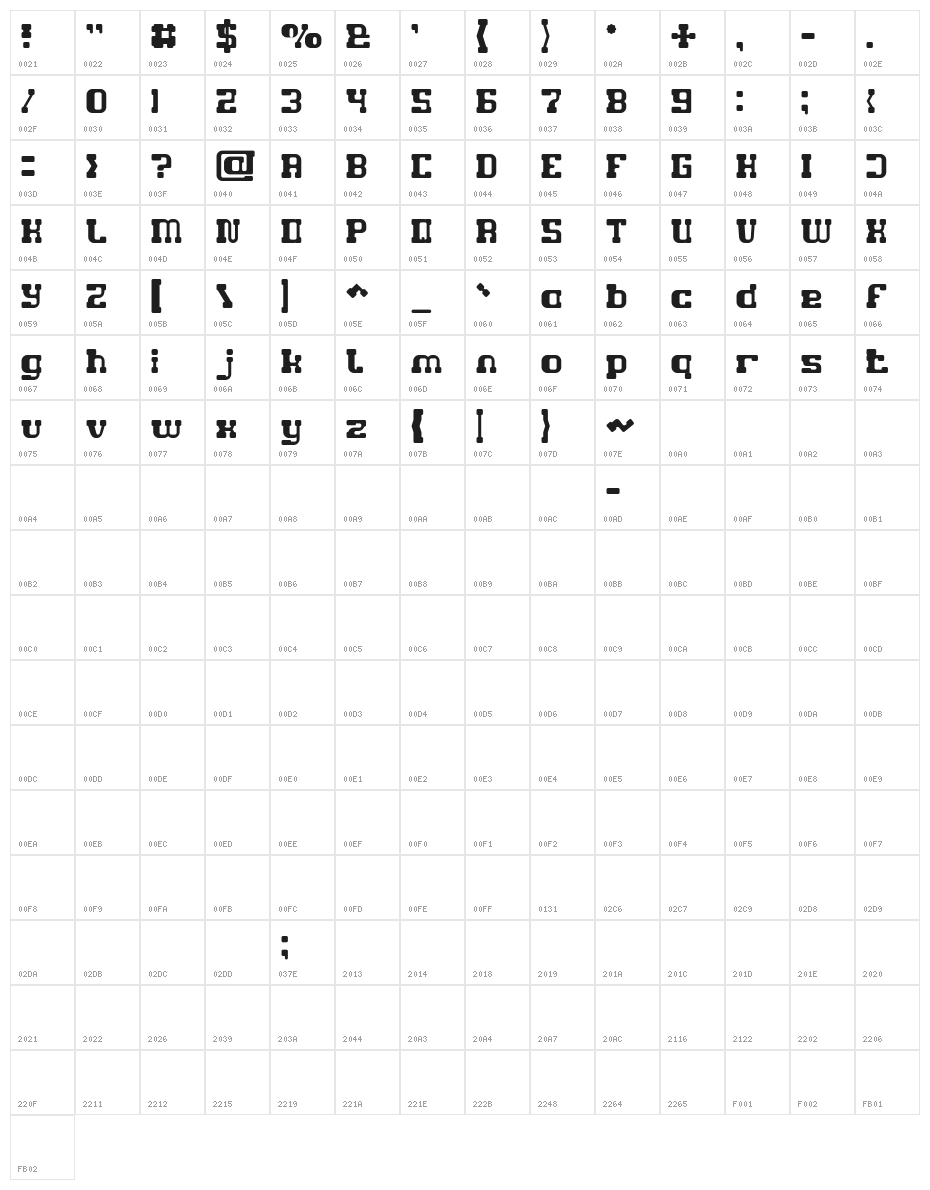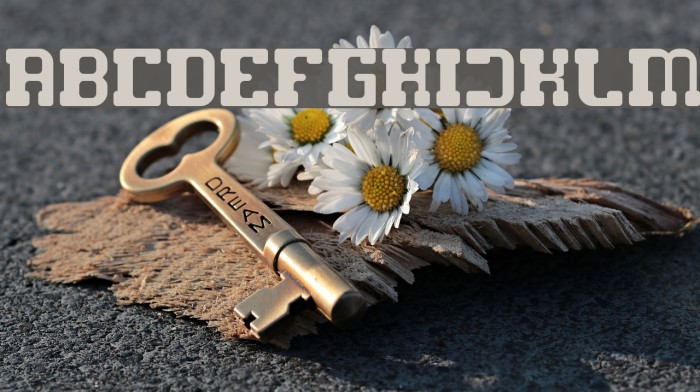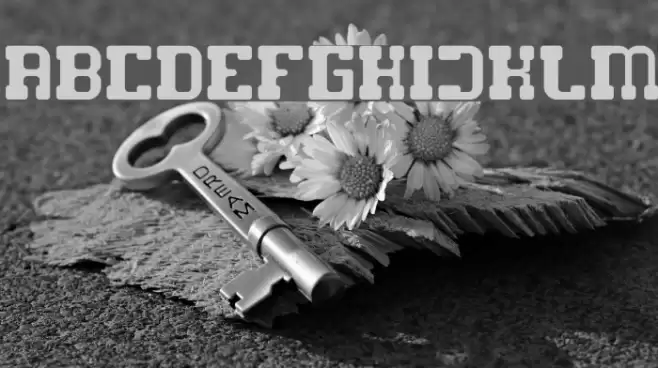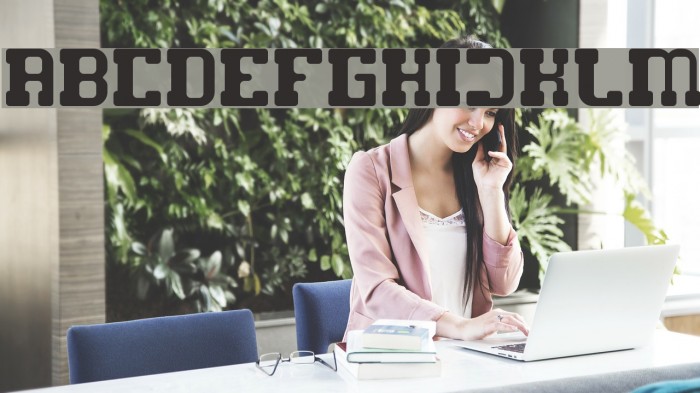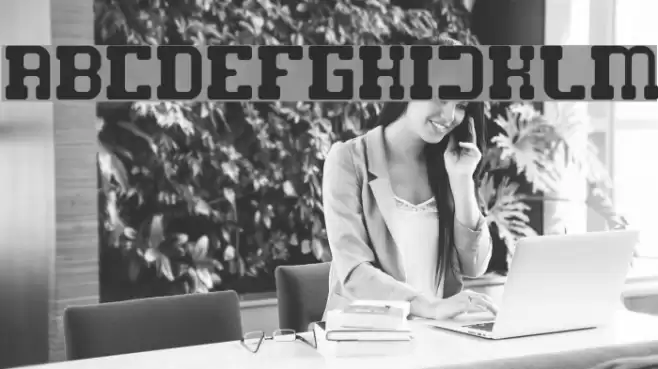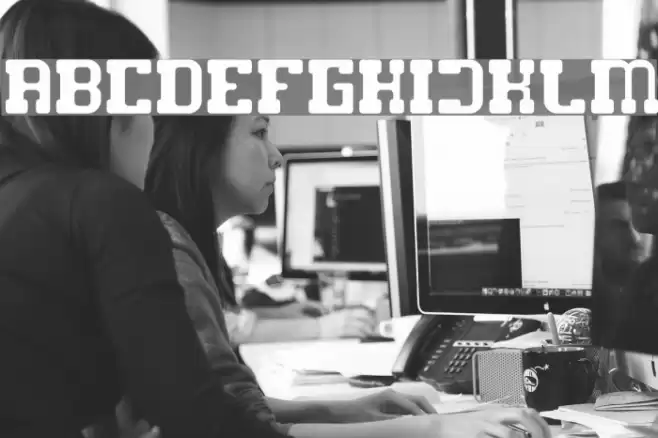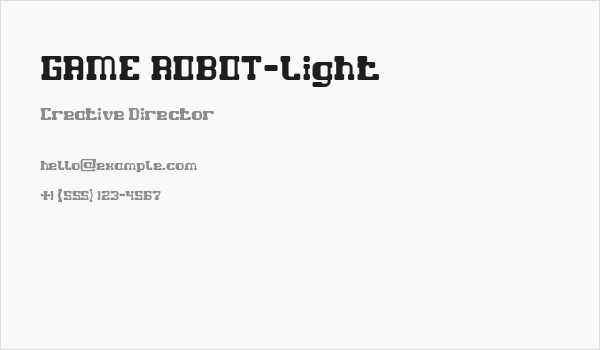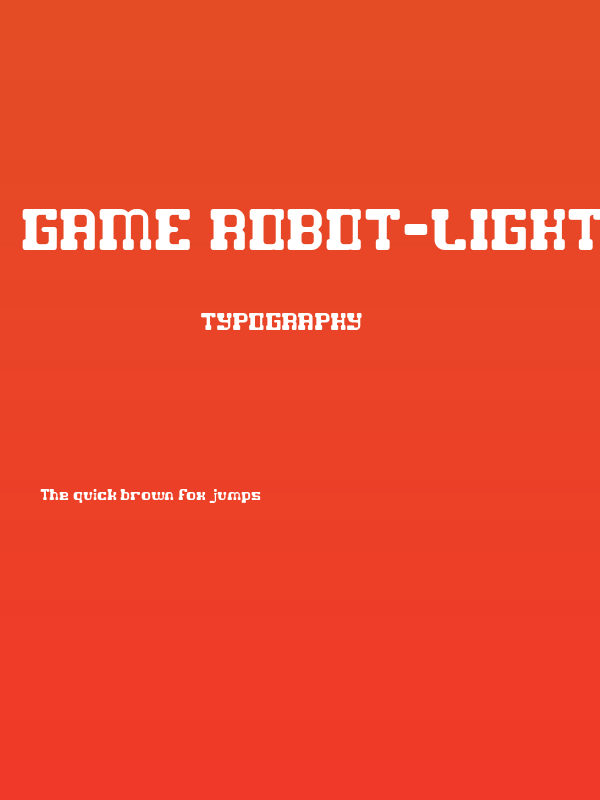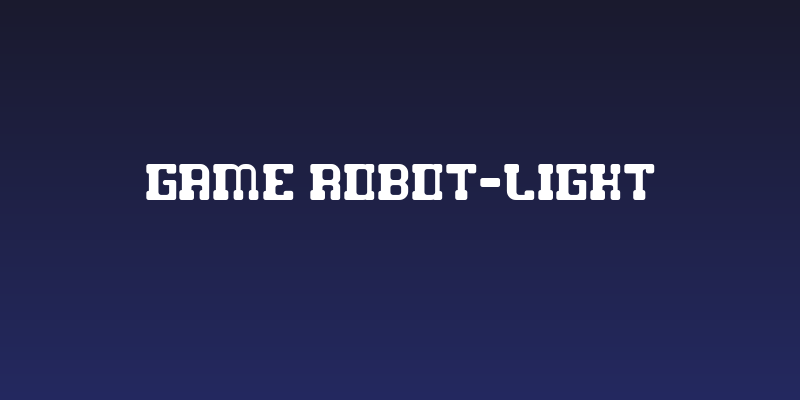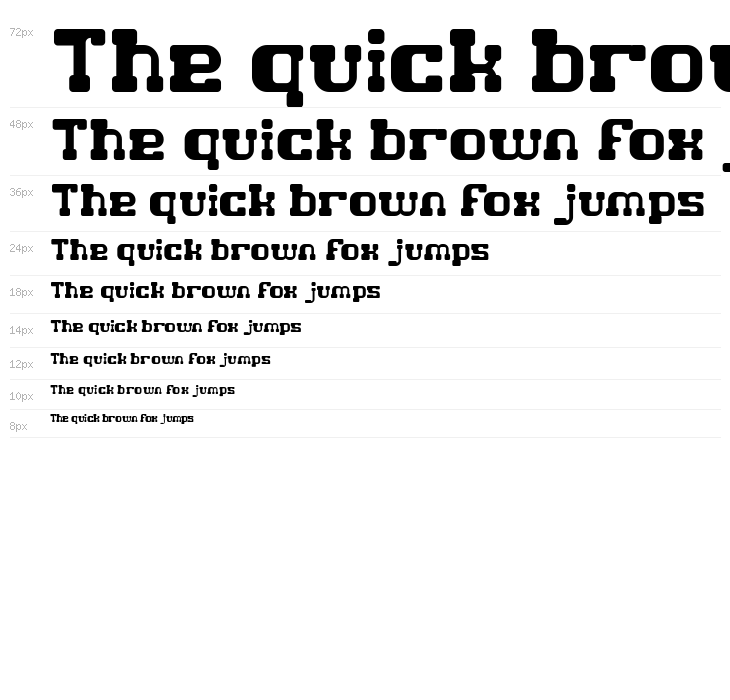
GAME ROBOT-Light Font
GAME ROBOT-Light Description
This font features a bold and robust design with a distinctly futuristic and mechanical aesthetic. The characters are constructed with thick, block-like forms that suggest a sense of strength and stability. The rounded edges and uniform stroke widths contribute to a cohesive and harmonious appearance, while the geometric shapes give it a modern and industrial feel. The uppercase and lowercase letters maintain a consistent style, making it versatile for various design applications. The numerals and special characters are equally bold, ensuring readability and impact.
| Proposed Projects | Ideal for technology branding, video game titles, posters, and any project requiring a strong, modern look. |